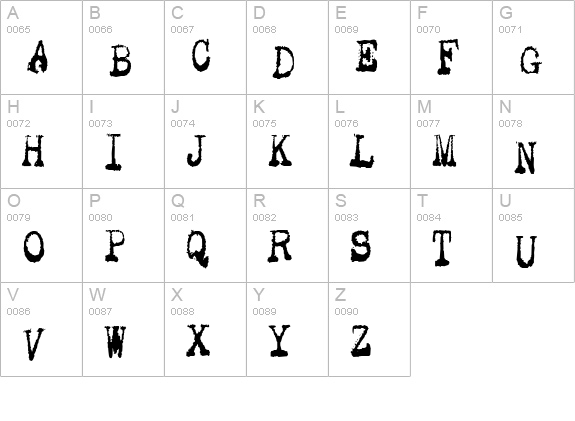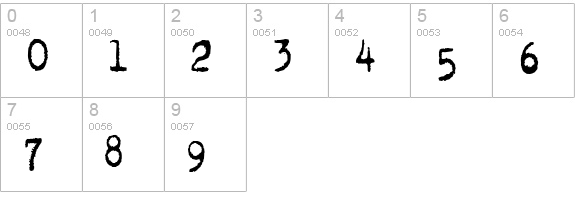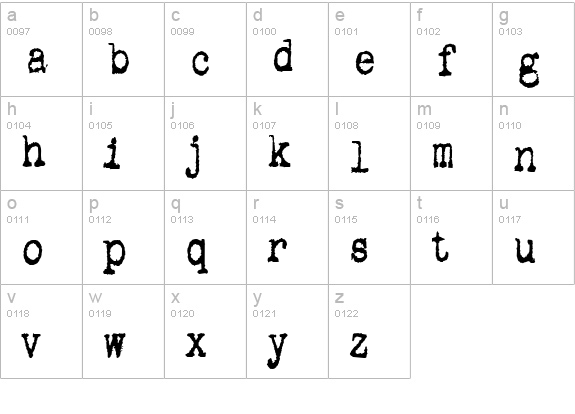
Gutter Vomit Font Details
Introducing Gutter Vomit font, a bold and edgy typeface that exudes a rebellious and grungy vibe. This font is perfect for projects that require a touch of raw energy and a hint of urban attitude. With its jagged lines and distressed appearance, Gutter Vomit font adds a unique and eye-catching element to any design. Best of all, Gutter Vomit font is completely free to download at FontsMarket.com. Simply head over to the website to grab this font and unleash its powerful impact on your creative projects. Whether you're working on posters, album covers, or branding materials, Gutter Vomit font is sure to make a statement and leave a lasting impression. Download it today and let your creativity run wild with this one-of-a-kind typeface.